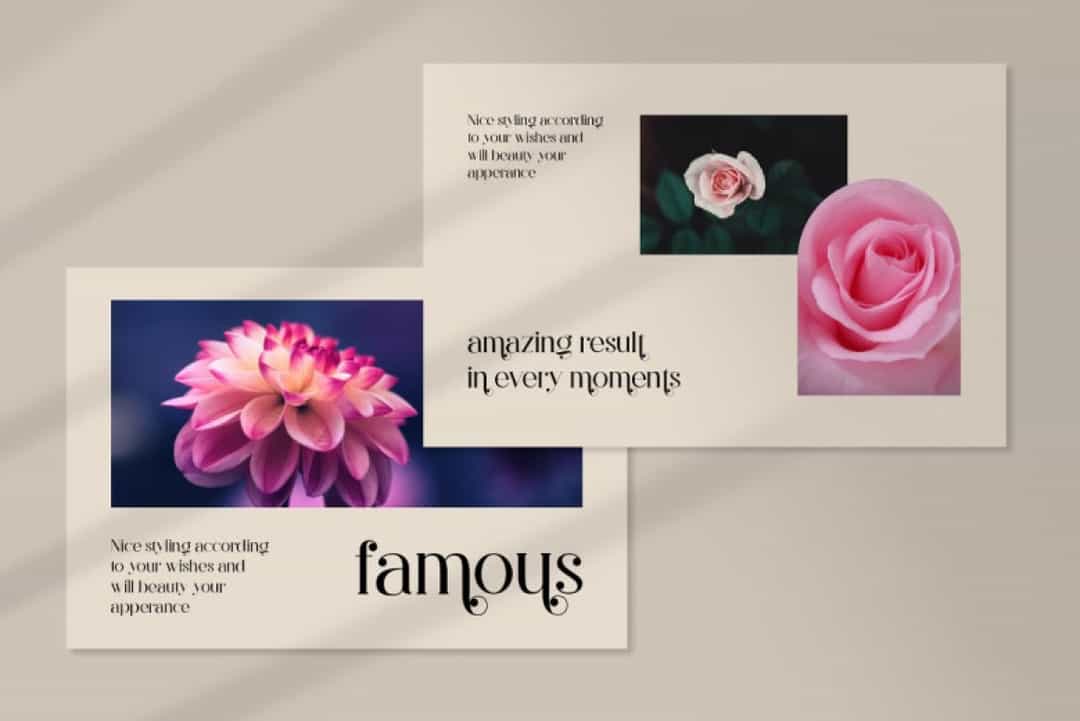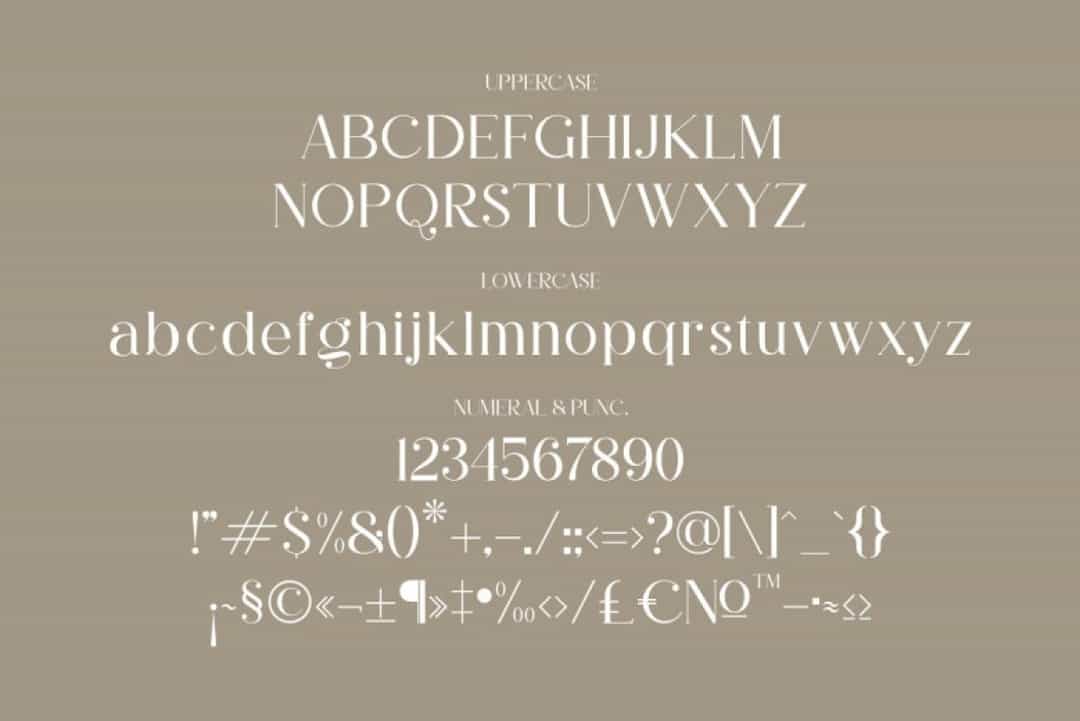
Rihena Font is an elegant and modern serif font with its own distinct design and modern appearance, ideal for use in creating classy logos, movie or book titles, fashion clothing brand names, magazine letters, quotes and much more.